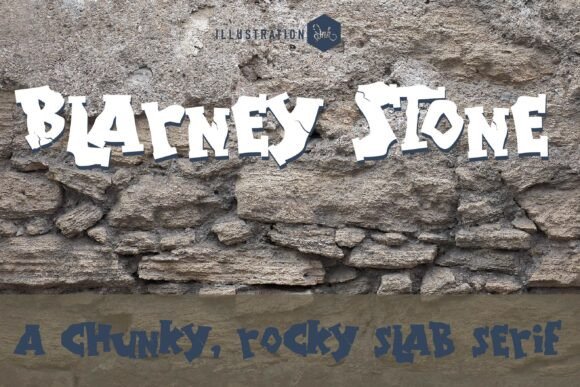
The Charm of Blarney Stone Font: A Designer’s Delight
I still remember the time I was working on a project for a client’s wedding invitation. I had all the design elements in place, but I just couldn’t find the right font to give it that personal touch. That’s when I stumbled upon the Blarney Stone Font. Its unique, hand-crafted charm instantly resonated with me, and I knew I had found the perfect fit. In this article, I’ll share my experience with this beautiful font, its features, and how you can make the most of it in your designs.
A Personal Review of Blarney Stone Font
• ✨ Unique, hand-crafted look: The Blarney Stone Font has a distinct, rough texture that gives it a rock-like appearance. It’s perfect for designs that require a personal touch.
• ✅ Versatility: This font can be used for both formal and informal designs, making it a great addition to your font library.
• 💕 Emotional connection: The font’s imperfections and quirks make it relatable and evoke an emotional response from the reader.
While the Blarney Stone Font is a beautiful addition to any design, there are a few things to keep in mind:
• 🤔 Legibility at small sizes: Due to its chunky serif and rough texture, the font may not be legible at very small sizes. It’s best used at larger sizes, such as headlines or titles.
• ⚠️ Limited use in body text: While the font is beautiful, it’s not ideal for long blocks of body text. It’s best used for headings, titles, or short paragraphs.
The Backstory of Blarney Stone Font
The Blarney Stone Font was inspired by the legendary Blarney Stone in Ireland, known for its mystical powers of eloquence. The font’s designer aimed to capture the stone’s rugged, natural beauty and translate it into a digital font that’s both charming and unique.
Font Name Blarney Stone Font
Author Illustration Ink
Q: What is the Blarney Stone Font?
A: The Blarney Stone Font is a hand-crafted, chunky serif font that features a rough, rock-like texture. It’s perfect for designs that require a personal touch.
Q: Is the Blarney Stone Font suitable for body text?
A: While the font is beautiful, it’s not ideal for long blocks of body text. It’s best used for headings, titles, or short paragraphs.